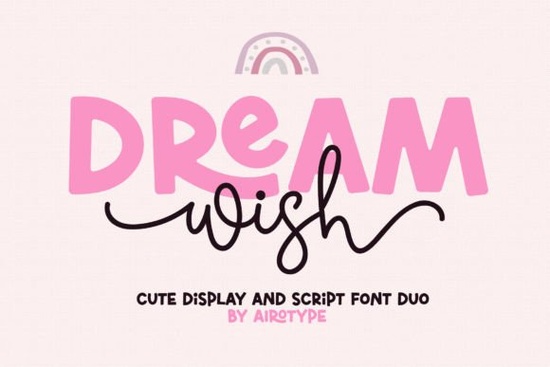
If you’re looking for a font that feels playful but still polished, Dream Wish Font might be just what your next project needs. It’s a two-part font duo one part is a single-line script with elegant swashes, and the other is a bold, all-caps sans that holds its own. You can use them together for contrast or separately depending on the vibe you want. Whether you’re designing greeting cards, branding small businesses, or making print-on-demand shirts, this pair gives you flexibility without sacrificing charm.
What makes Dream Wish different from other script fonts?
Most script fonts lean heavily into either elegance or whimsy Dream Wish finds a sweet spot in between. The script version flows naturally, almost like hand-lettering, but stays clean enough for readability even at smaller sizes. And because it includes swashes, you get those little decorative flourishes without needing to manually add them. The companion all-caps font? It’s thick, modern, and has a few ligatures tucked in for personality not so many that it feels busy, just enough to keep things interesting.
If you’ve tried fonts like Randy Sofia or Quincy and liked their bounce, you’ll feel right at home here. But where those fonts sometimes lean more formal or structured, Dream Wish leans into fun. Think birthday invites, baby shower decor, or Etsy shop logos that need to feel friendly and approachable.
It also plays nicely with cutting machines like Cricut or Silhouette. The single-line script is especially useful here since it’s drawn as one continuous stroke, it cuts cleanly without overlapping paths. If you’ve struggled with fonts like Dirty Stroke where the brushy texture complicates cutting, Dream Wish will feel refreshingly simple.
How do I pair the two fonts effectively?
The key is contrast. Use the script for names, quotes, or headlines that need personality. Use the bold caps for supporting text think dates, locations, product names, or calls to action. Here’s a quick example:
- Script: “Let’s celebrate!”
- Bold Caps: SATURDAY, JUNE 15 • BACKYARD PARTY STARTS AT 4PM
You can also layer them. Try placing the script slightly over the bold text, offset just enough to create depth. Or use color blocking script in pastel pink, bold caps in charcoal gray. Because both fonts share the same playful DNA, they never clash.
Looking for similar vibes? Check out Forever for a softer, more romantic script, or Rainbow if you want something even more energetic and colorful. But Dream Wish sits comfortably in the middle cheerful without being childish, stylish without being stiff.
Any tips for getting the most out of this font?
A few small tricks go a long way:
- Don’t overdo the swashes. They’re beautiful, but using them on every letter can make your design feel cluttered. Pick one or two key words to highlight.
- Adjust tracking on the bold caps. Sometimes letters sit too close a tiny bit of spacing helps them breathe, especially in longer phrases.
- Try mixing case styles. The bold font is all caps by default, but you can manually lowercase some letters in design software for a more casual look.
- Use it in mockups. Dream Wish looks great on tote bags, stickers, and chalkboard signs. Seeing it in context helps you judge scale and balance.
And if you’re using it digitally say, for Instagram stories or Pinterest pins bump up the size slightly. Thin strokes in the script can disappear on mobile screens if they’re too small.
Who is this font NOT for?
If you’re designing corporate reports, legal documents, or anything that needs to feel ultra-serious, this probably isn’t your best pick. Same goes if you’re after a vintage or grunge aesthetic fonts like Dirty Stroke would serve you better there. Dream Wish thrives in spaces that value warmth, creativity, and a touch of lightheartedness.